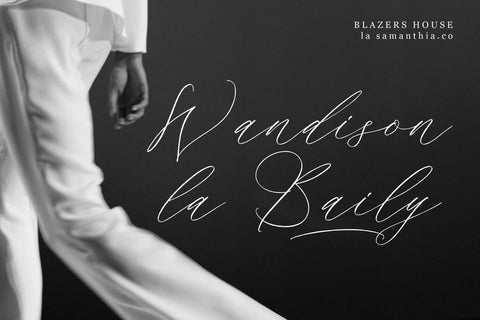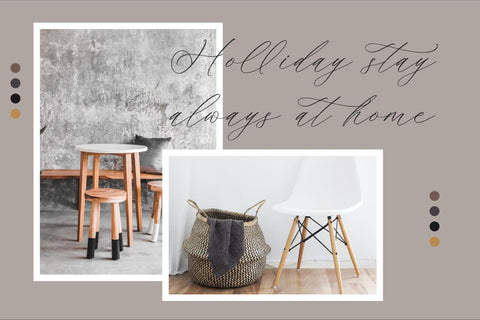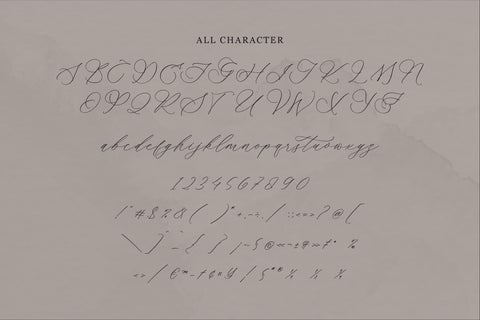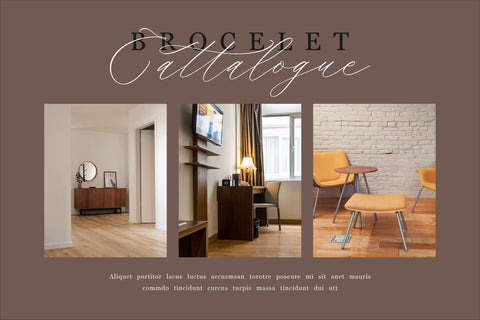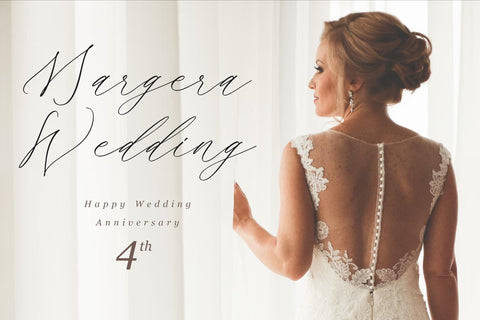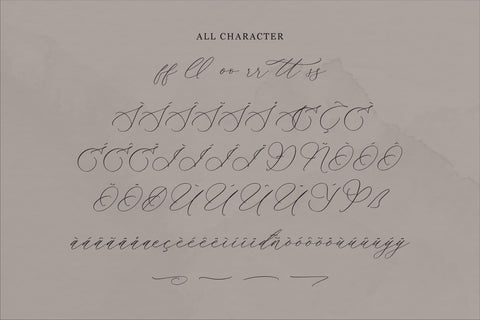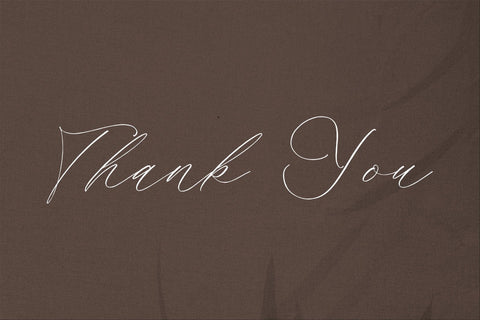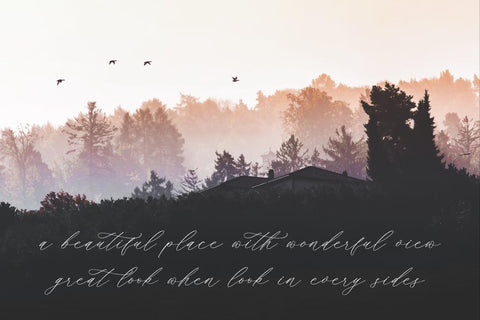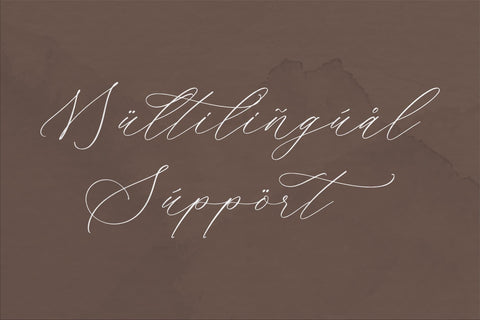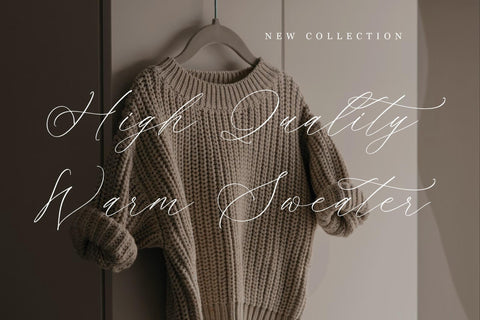
Ramsttale Chelliria - Chic Calligraphy Font
Proudly present Ramsttale Chelliria - Chic Calligraphy Font , created by Storytype,
A luxury script that has own unique style & modern look.